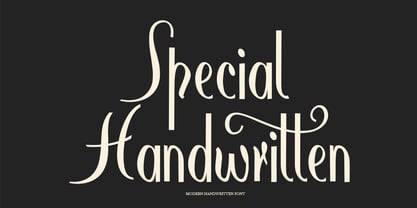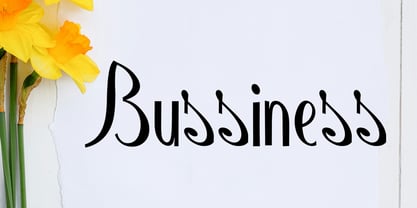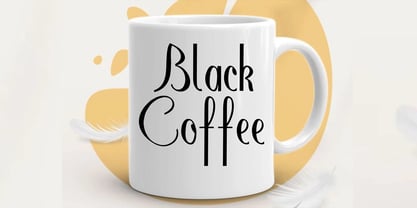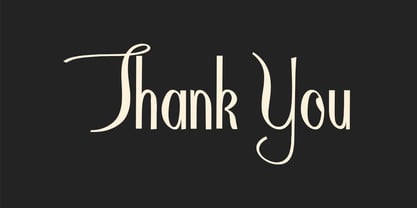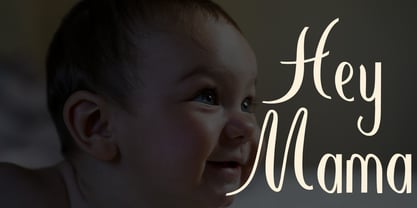
Special Handwritten
by Shape Studio
The Special Handwritten Font Family was designed by Teuku Saifullah and published by Shape Studio. Special Handwritten contains 1 styles. More about this family
Special Handwritten is an elegant font that combines the beauty of classic decorative copperplate with a modern touch. Designed with great attention to detail, it offers a refined and stylish look that enhances any creative project.
The font’s smooth, clean, and graceful letterforms create a feminine and glamorous feel, while remaining highly legible. Luxurious letter connections and flowing curves make it perfect for designs that need sophistication and charm. Special Handwritten also comes with alternative styles and stylistic variations, giving you the flexibility to craft unique and personalized typography.
Its timeless appeal makes it ideal for a wide range of applications, including invitations, labels, restaurant menus, logos, fashion and beauty branding, stationery, magazines, books, greeting or wedding cards, packaging, and promotional materials.